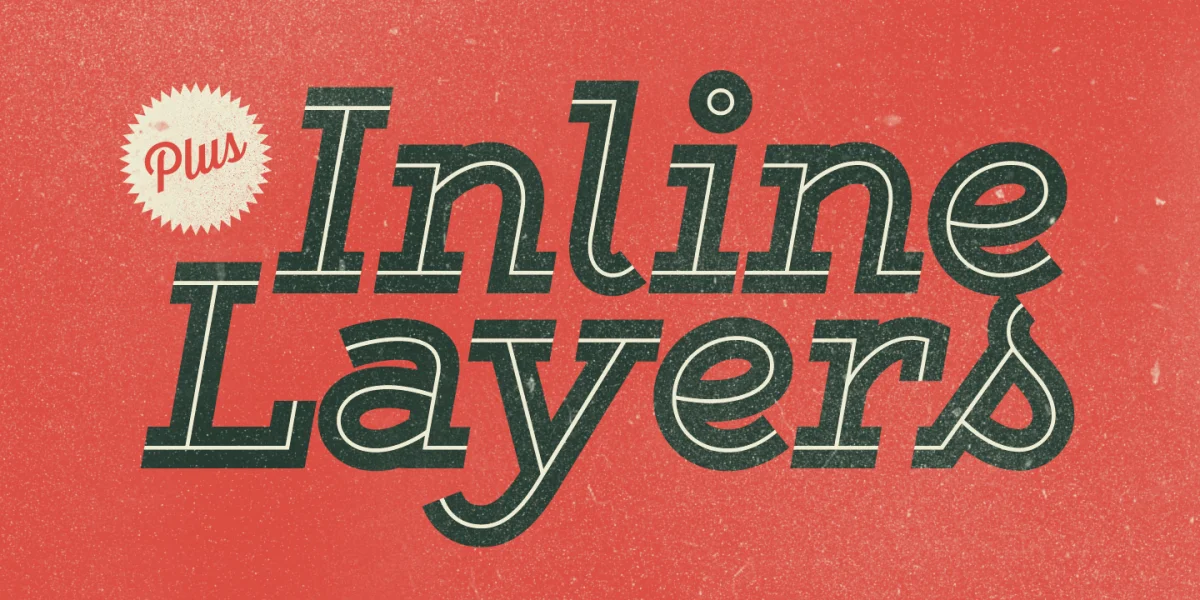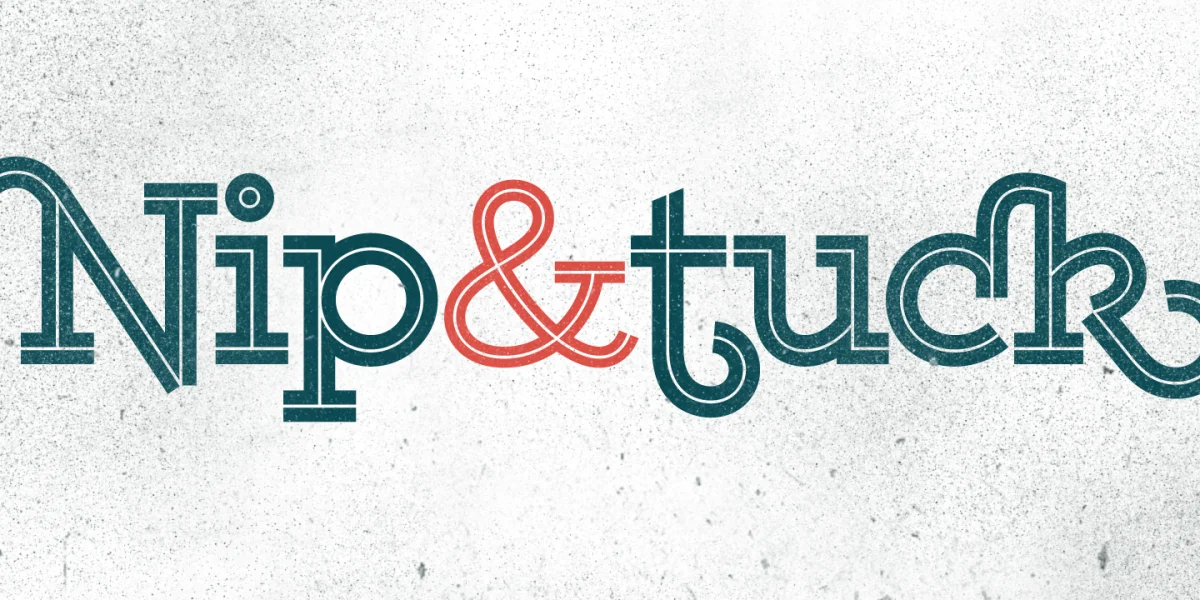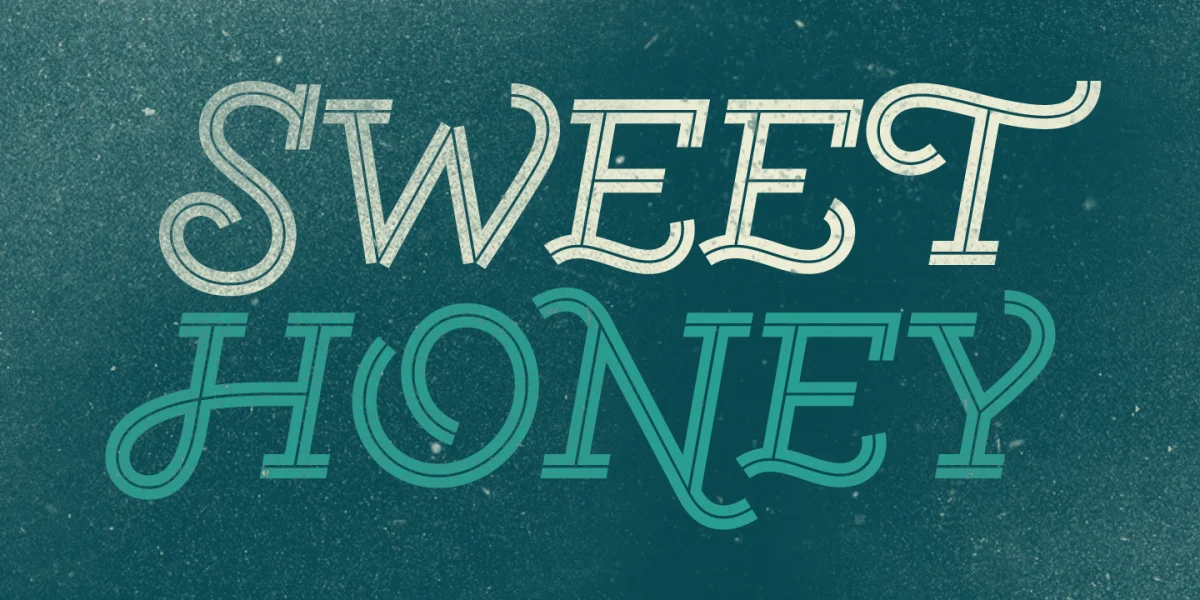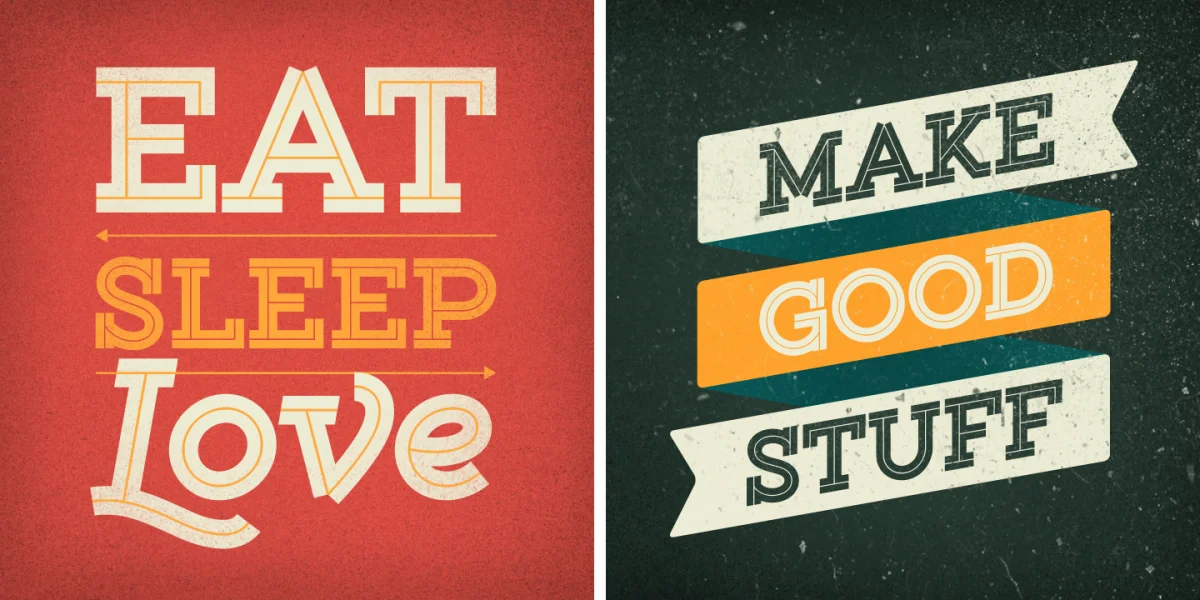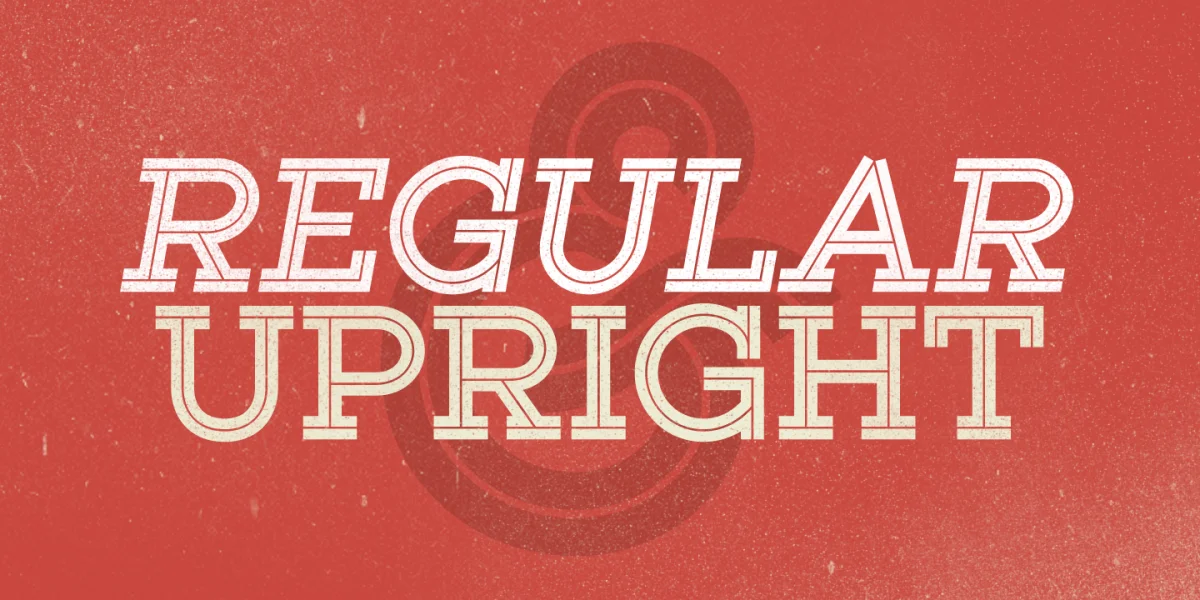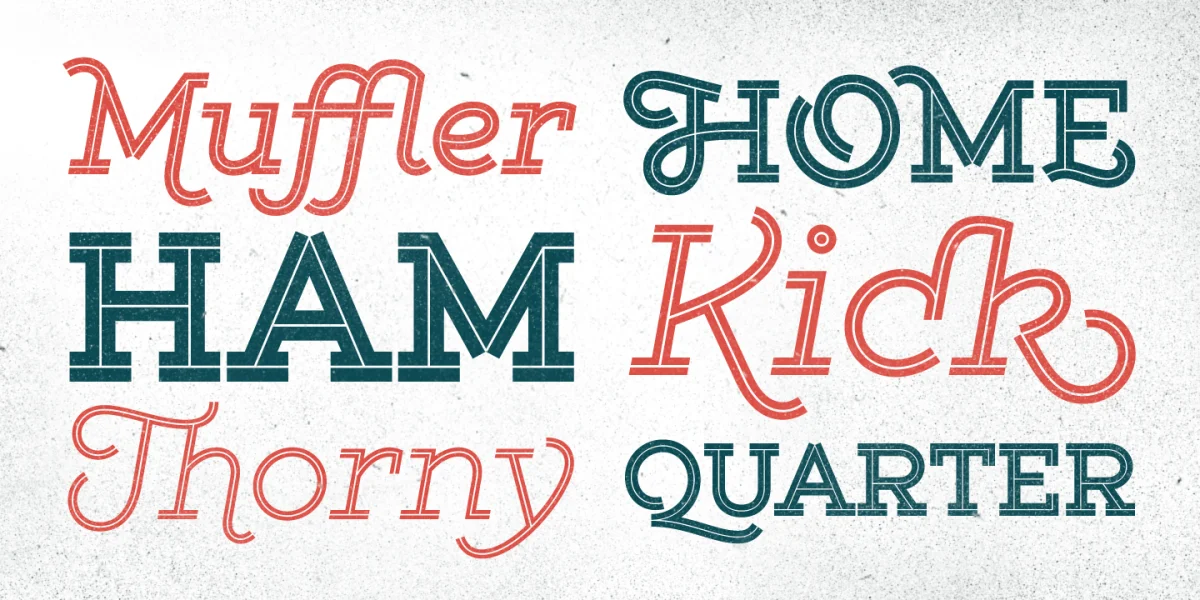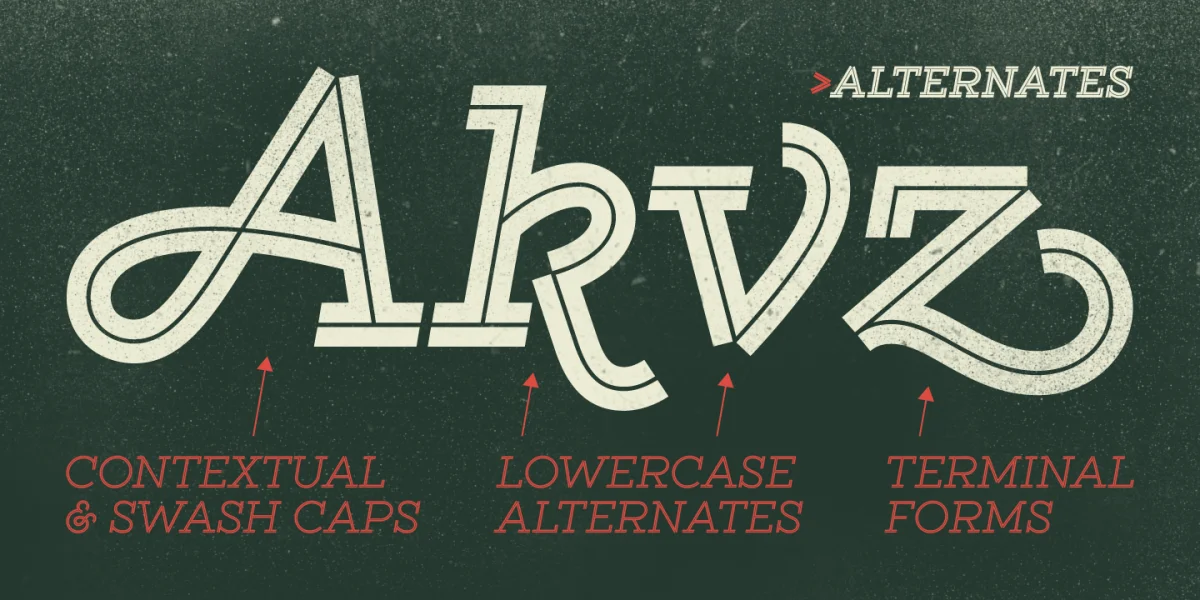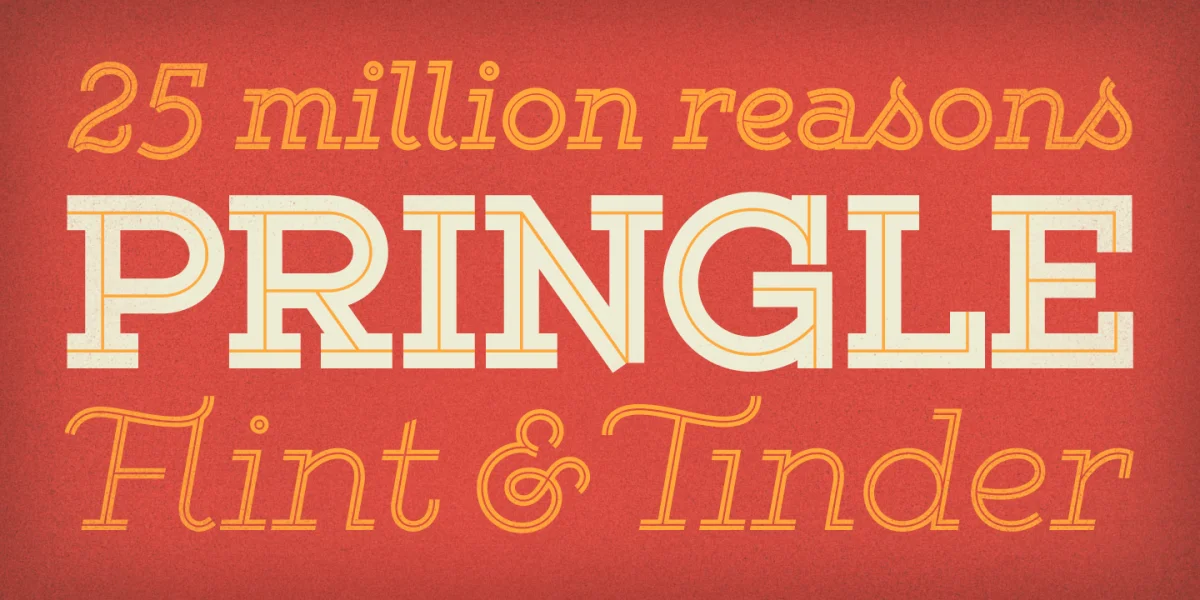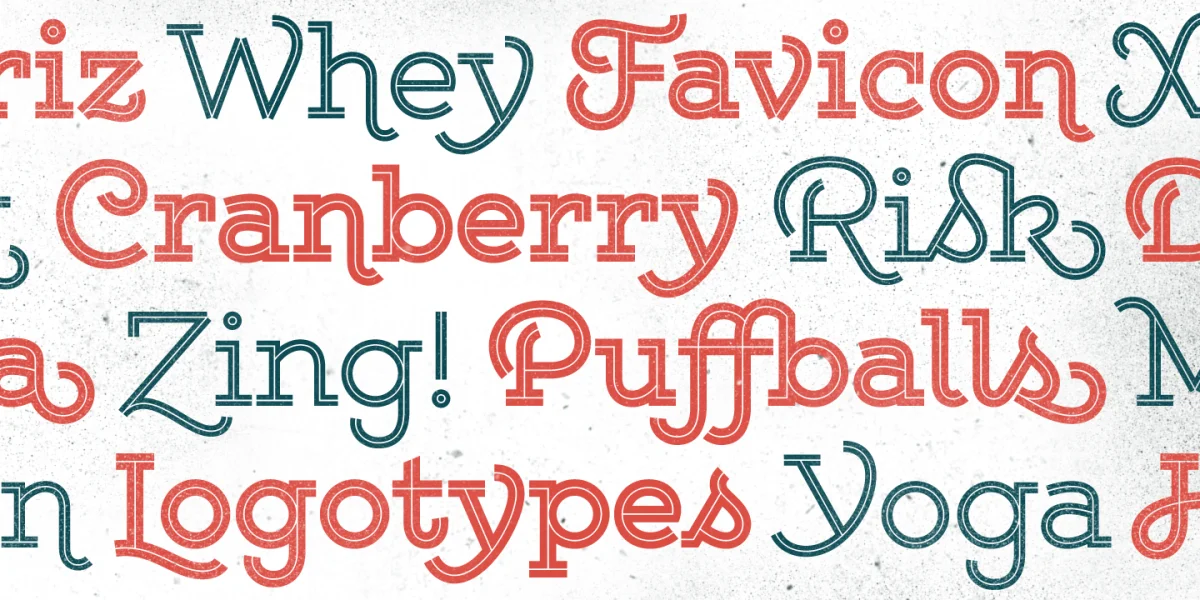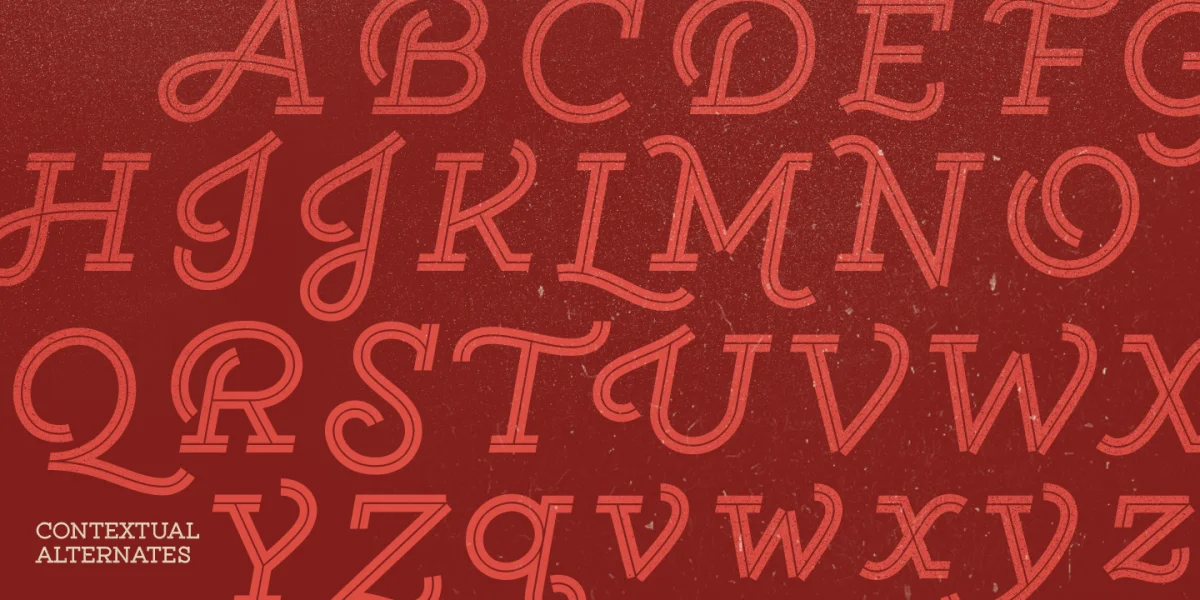
Gist Upright Extrabold Demo is for personal use only. It includes all the upper and lowercase characters and funky alternates, but doesn't include numbers, punctuation and other characters. For a commercial license and versions with the complete character set, or to get the complete 20-weight commercial family visit www.myfonts.com/fonts/yellow-design/gist